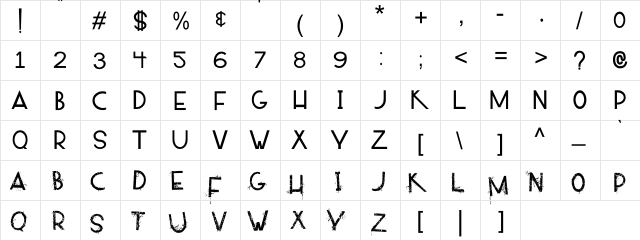
ALPACA54 Regular
| Foundry | Dirt2.com |
| Designer | Andrew2 [Andrew Hart] |
Design Context for ALPACA54 Typeface
ALPACA54 offers clean, dependable letterforms without strong stylistic allegiance, making it a practical choice for designers who need flexibility.